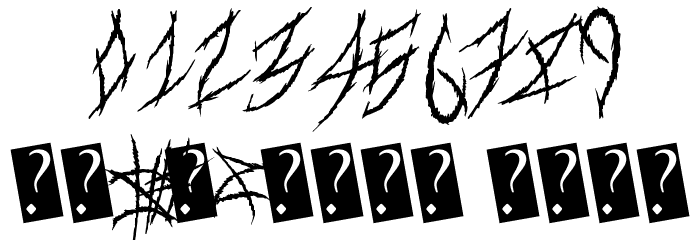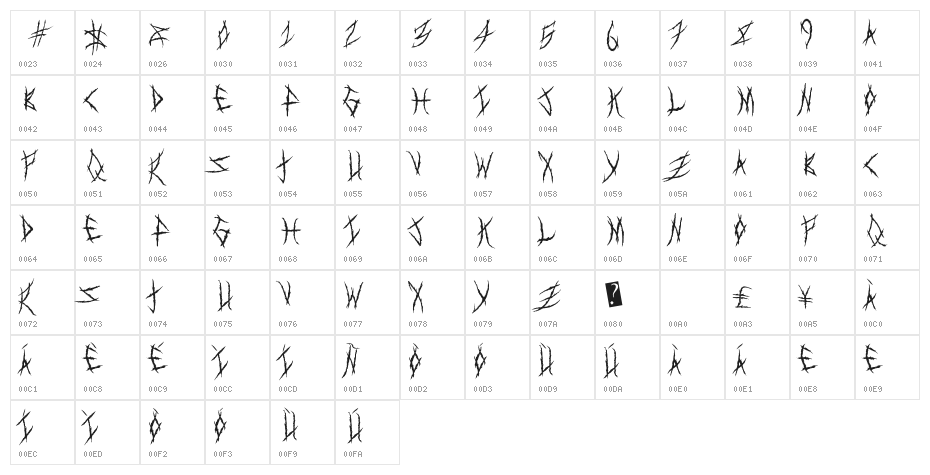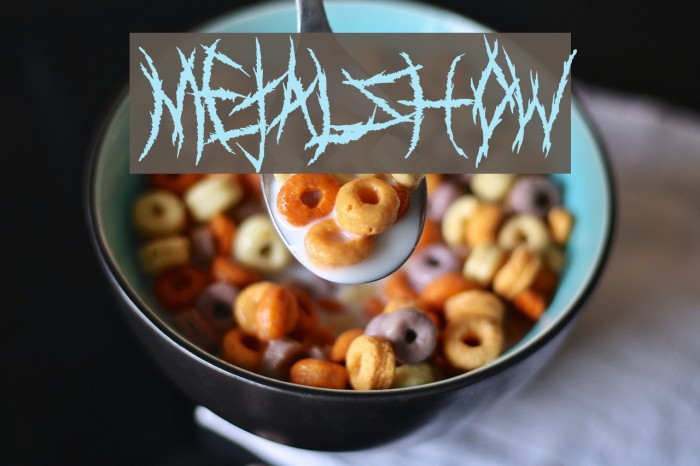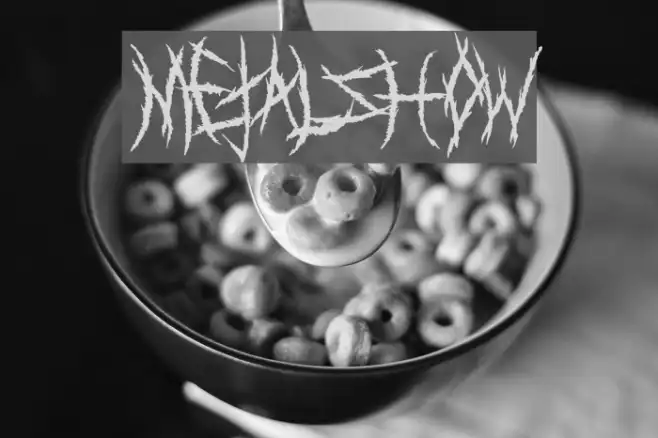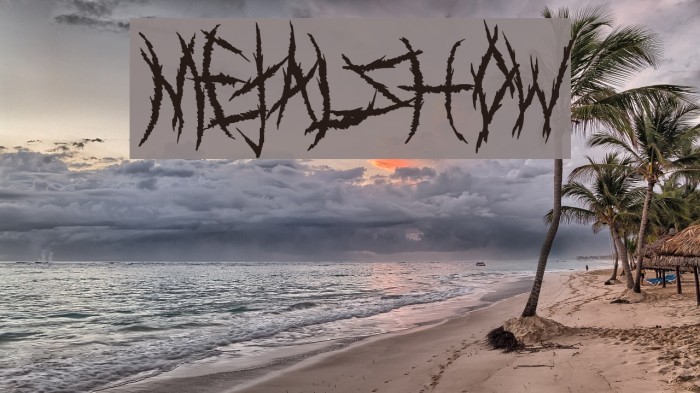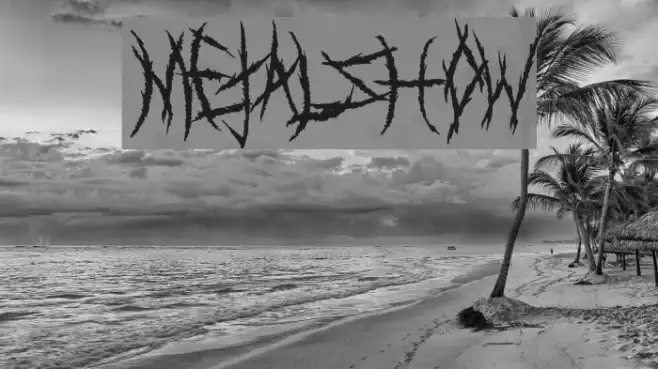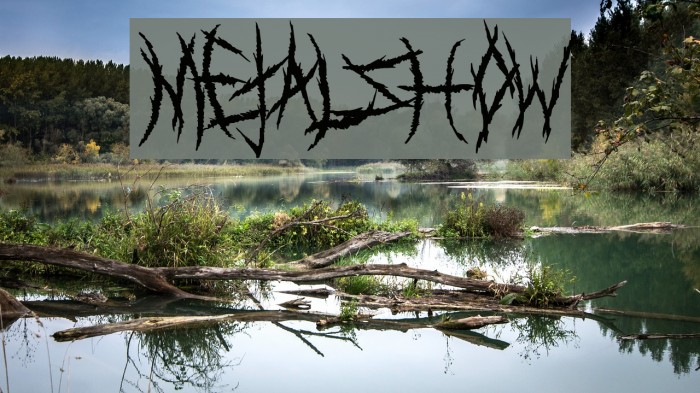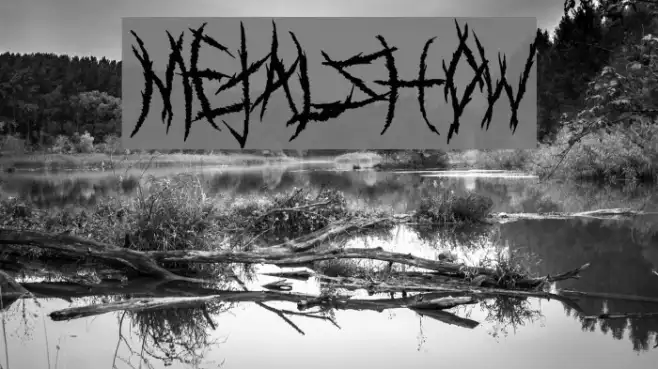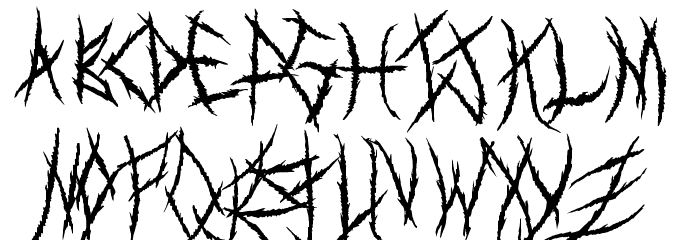
MetalShow Font
MetalShow Description
This font exudes a raw, edgy aesthetic with its jagged, thorn-like strokes that create a sense of intensity and aggression. The characters are highly stylized, featuring sharp angles and irregular shapes that evoke a sense of chaos and rebellion. The uppercase and lowercase letters maintain a consistent style, with each character appearing as if it has been scratched or carved out, adding to the overall rugged appearance. The numbers and special characters follow the same design principles, ensuring a cohesive look throughout. This font is perfect for projects that aim to capture a sense of danger, excitement, or underground culture.
| Use Case | Logos, Headlines |
| Proposed Projects | Ideal for band logos, album covers, extreme sports branding, and edgy poster designs. |